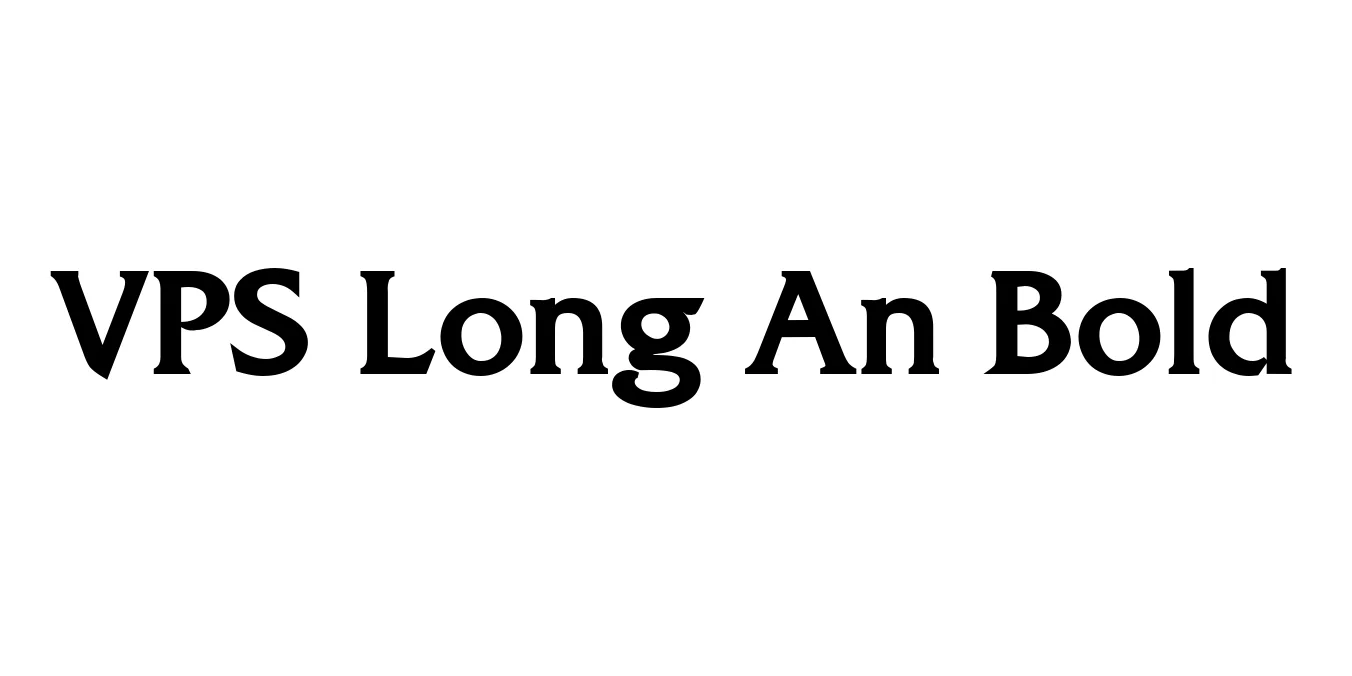
VPS Long An Bold
Designed by Vietnamese Professional Society (VPS)
VPS Long An Bold is a prominent typeface within the Vietnamese Professional Society (VPS) font collection, designed specifically to address the complexities of the Vietnamese language in digital environments. It was developed to ensure that diacritical marks are rendered clearly and aesthetically, which was a significant challenge during the early days of character encoding. The font features strong, high-contrast strokes and a traditional serif structure that provides a sense of authority and clarity.
Historically, the VPS font suite played a vital role in the standardization of Vietnamese typography for desktop publishing. Long An Bold is particularly favored for its robust weight, making it a staple for official documents, community newsletters, and academic publications within the Vietnamese diaspora. Its design bridges the gap between classic calligraphic roots and the functional requirements of modern printing, ensuring legibility at various sizes.
VPS Long An Bold Best Uses
Excellent for bold, impactful titles in magazines and news articles.
Provides a formal and professional look for certificates and legal papers.
Specifically optimized for complex Vietnamese diacritics and character sets.
Reliable legibility for newsletters, brochures, and physical publications.
Clear and authoritative for textbooks and academic headers.